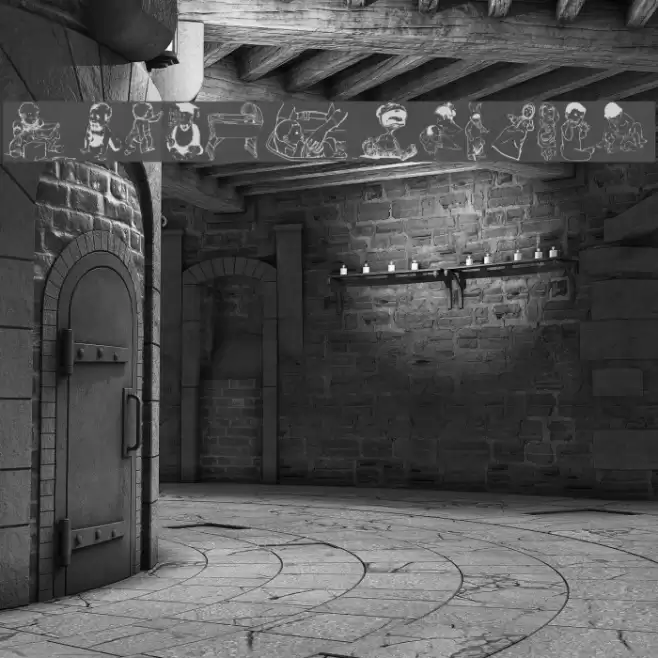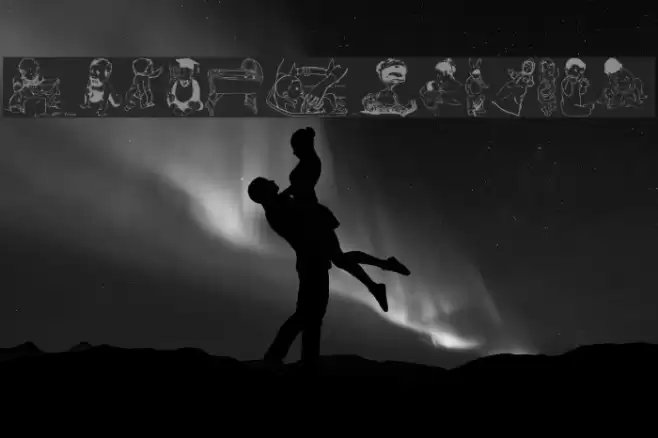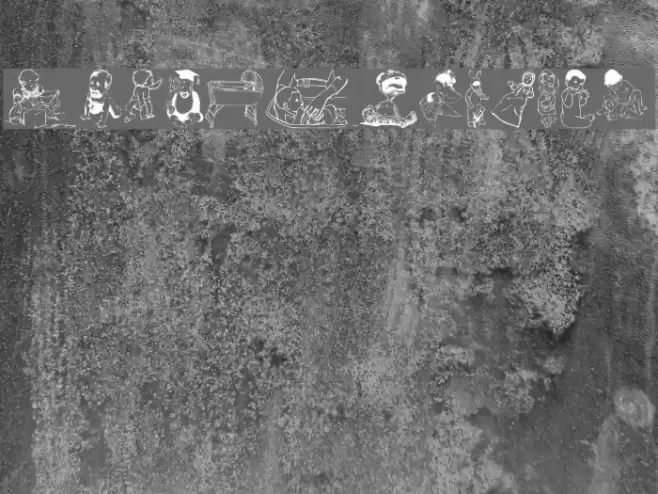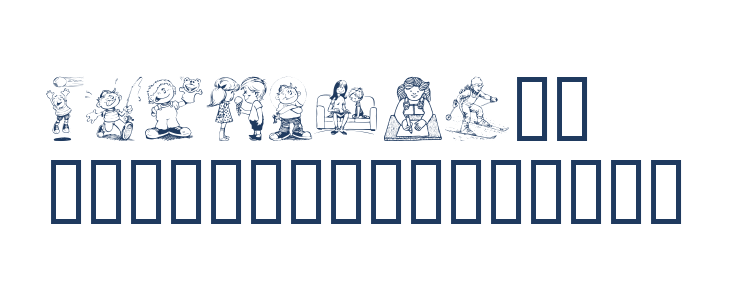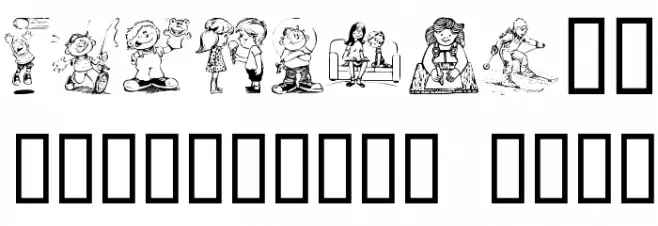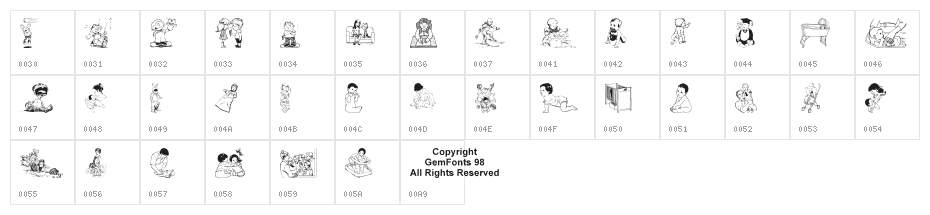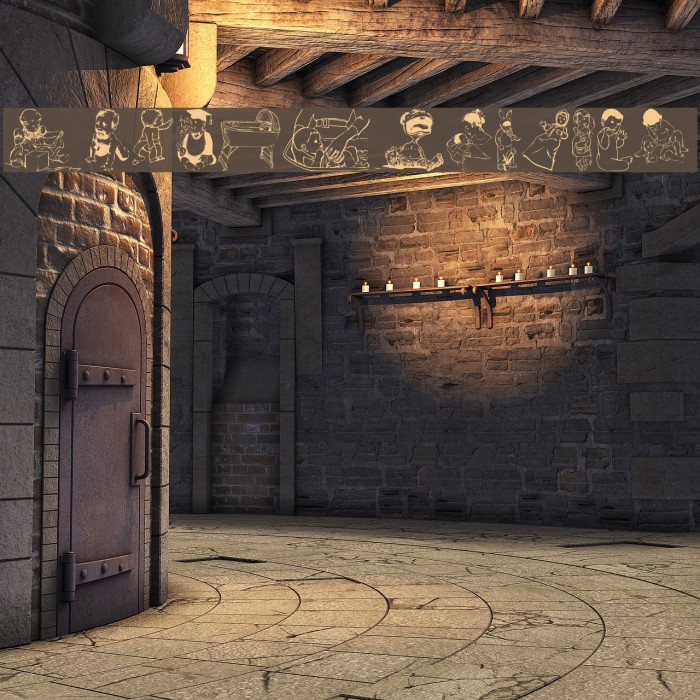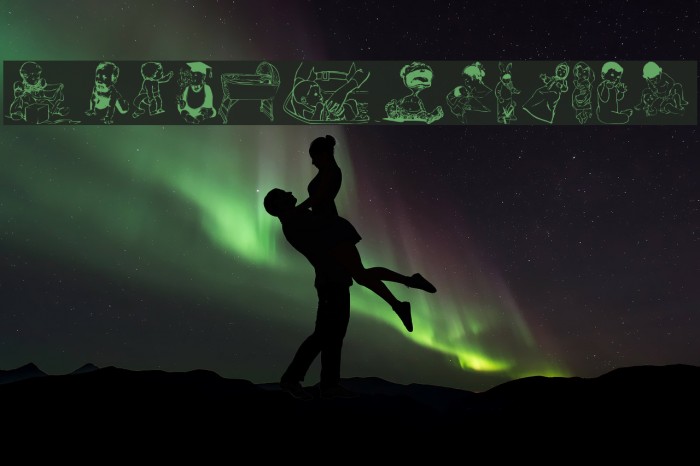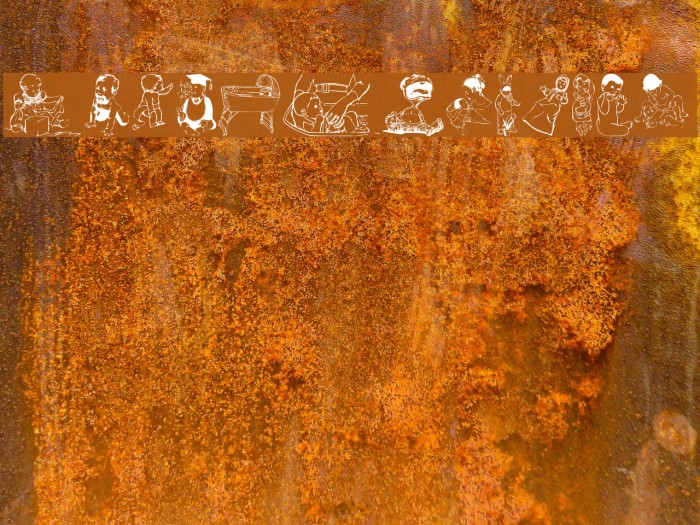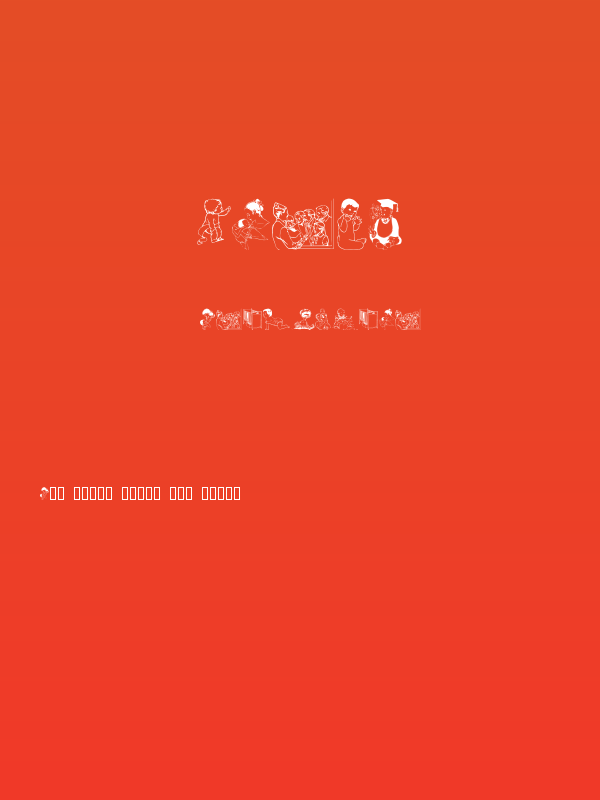
Chyld Font
Chyld Description
A playful, decorative font featuring hand-drawn illustrations of children in various activities, replacing standard letterforms with detailed cartoon-like scenes. The style is whimsical and narrative, with each glyph acting as a unique vignette.
Decorative font with illustrated children in playful scenes from Dingbats fonts.
- Proposed Projects: Children’s books, educational materials, posters, invitations, scrapbooking, themed event graphics.
- Overall Style: Decorative, Whimsical, Playful
- Use Case: Logos, Posters, Themed Headlines, Children’s Projects